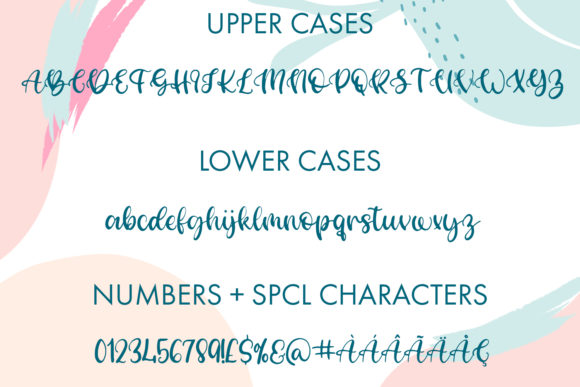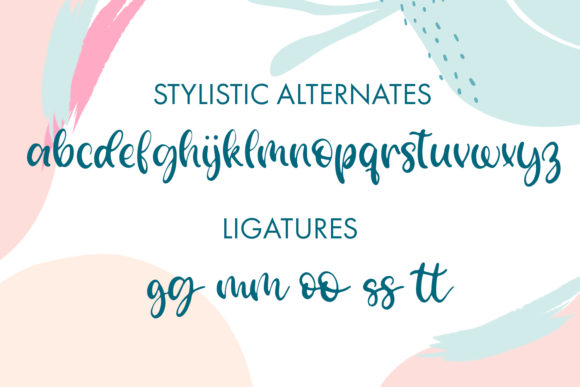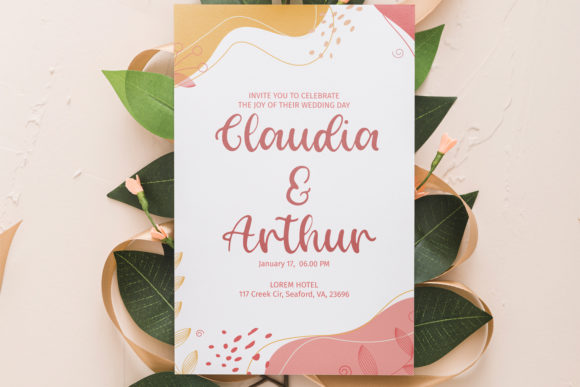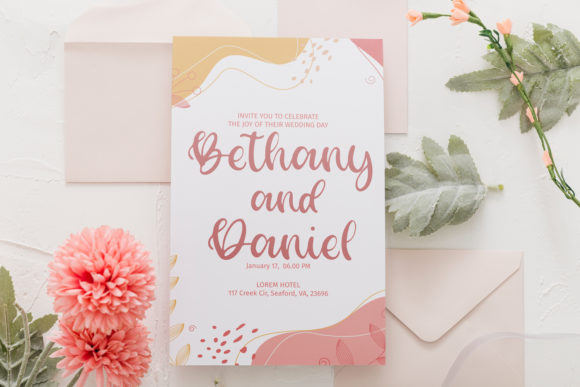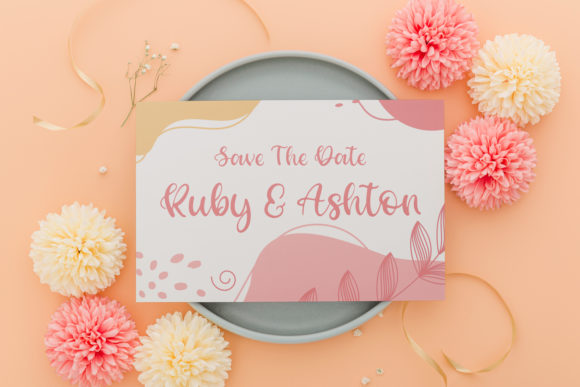
Dinglebarry Font
About Dinglebarry Font
Dinglebarry is a fun and beautiful handwritten font. Incredibly unique and exquisite, this font will make each of your designs come alive!